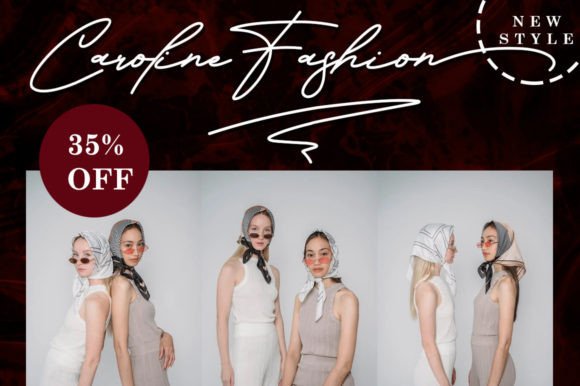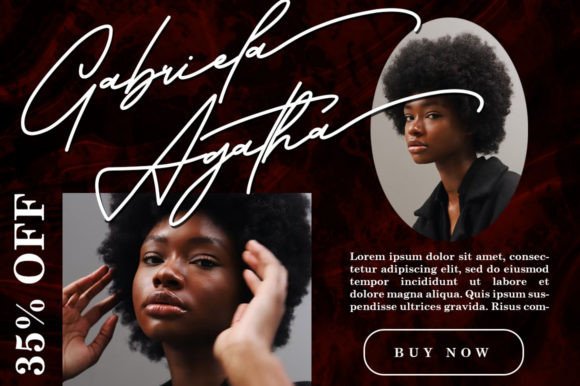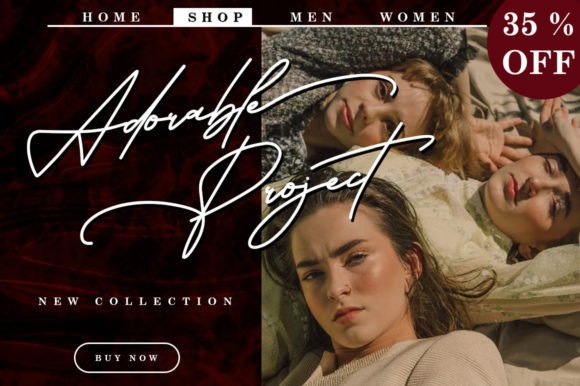
Introduction to Moonalissa Font
Have you ever been in the midst of a creative project, pouring your heart and soul into a design, only to be held back by a lackluster font? The perfect font can make all the difference, elevating your design from ordinary to extraordinary. This is where the Moonalissa Font comes in – a dazzling script font that is sure to take your creations to the next level.
With its neatly crafted and highly detailed design, the Moonalissa Font is a valuable resource for designers of all levels. Whether you’re working on a project that requires a free download with a transparent background or a high-quality font to give your design some extra flair, the Moonalissa Font is sure to impress. Its versatility makes it a must-have for any design library.
Key Features of Moonalissa Font
- Unique, hand-drawn design with a magical and mystical feel, perfect for creative projects and design resources.
- High-quality font with a transparent background, allowing for easy customization and versatility in design.
- Font size: 1,000 glyphs, providing a wide range of characters and symbols for creative expression.
- Perfect for use in a variety of creative projects, from fantasy novels to graphic design, and from advertising to fine art.
Honest Review: Moonalissa Font
As a designer, I’m always on the lookout for high-quality design resources that can elevate my creative projects. Recently, I had the chance to try out the Moonalissa Font, and I’m excited to share my honest review with you.
- ✨ The Moonalissa Font offers a unique and elegant design aesthetic that’s perfect for a variety of creative projects.
However, there are some limitations to keep in mind:
- ⚠️ The font doesn’t have a transparent background, which may not be ideal for designers who need to use it on top of images or other backgrounds.
- ⚠️ The font family is relatively small, with only a few styles available, which may limit its versatility.
Overall, I’m impressed with the Moonalissa Font’s high-quality design and free download option. While it may not be perfect, it’s a great addition to any designer’s toolkit, especially for creative projects that require a touch of elegance.
Tips for Getting the Most Out of Moonalissa Font
Use the Moonalissa Font for creative projects that require a high-quality, elegant font. It’s perfect for designing invitations, business cards, and brochures.
Combine the Moonalissa Font with a transparent background for a unique and eye-catching design.
The Moonalissa Font is ideal for:
Wedding invitations and stationery
Business cards and letterheads
Brochures and flyers
Designing a website or blog
Alternatives to Moonalissa Font
Great Vibes is a high-quality, handwritten font perfect for creative projects that require a touch of elegance and sophistication. It features a transparent background and is available for free download, making it an excellent alternative to Moonalissa Font. Use Great Vibes for wedding invitations, greeting cards, or any design project that requires a romantic and whimsical feel.
Compared to Moonalissa Font, Great Vibes has a more refined and elegant look, making it suitable for more formal and professional designs.
Alex Brush is a beautiful, hand-painted font ideal for designers who want to add a personal touch to their creative project. It features a high-quality design with a transparent background, making it easy to use as a design resource. Use Alex Brush for branding, logos, or any design project that requires a unique and artistic feel.